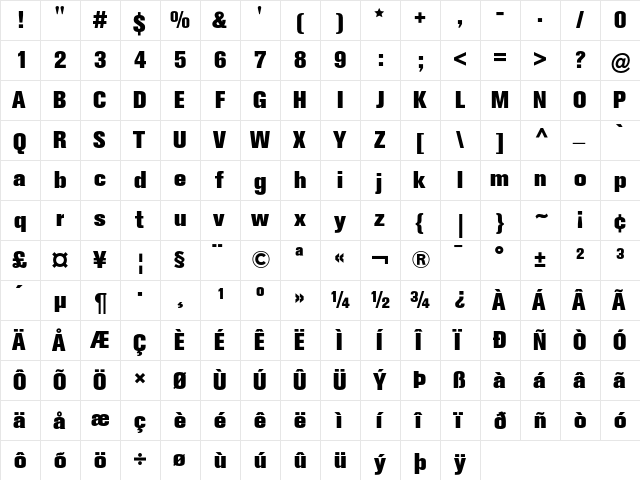
Berthold Akzidenz Grotesk BE Extra Bold
Design Context for Berthold Akzidenz Grotesk BE Typeface
Berthold Akzidenz Grotesk BE takes a clean, functional approach — its unadorned letterforms prioritise legibility and work reliably across screen and print environments. Its bold stroke weight gives it real presence on the page.
A strong choice for UI design, app interfaces, bold signage, and corporate brand systems.
Font Pairing: Use Berthold Akzidenz Grotesk BE for headlines alongside a lighter-weight sans or serif for body copy to establish clear visual hierarchy.
Pro Tip: Pair Berthold Akzidenz Grotesk BE with a display or serif font for headlines — its neutral character makes it an excellent supporting player in complex typographic systems.